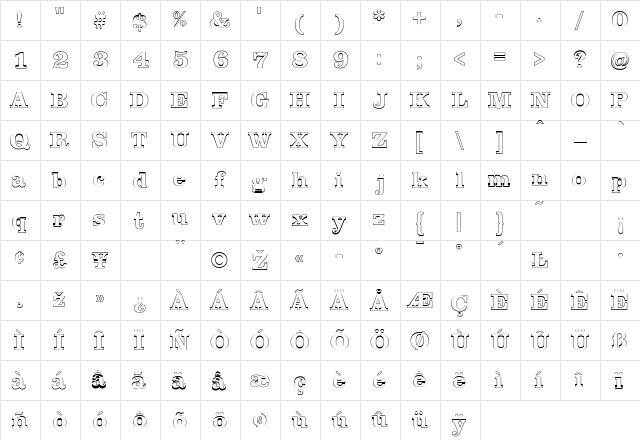
ClarendonOutline Regular Free Font
ClarendonOutline Regular
Design Context for ClarendonOutline
ClarendonOutline is built around its visual character rather than neutral utility - its distinctive forms are designed to make an impression at display sizes.
Font Pairing: Pair with a clean neutral sans-serif for body copy to let ClarendonOutline's character lead without overwhelming the composition.
Pro Tip: Use ClarendonOutline exclusively at display sizes - it was designed to be seen, not read at length. Let a neutral companion handle body copy.